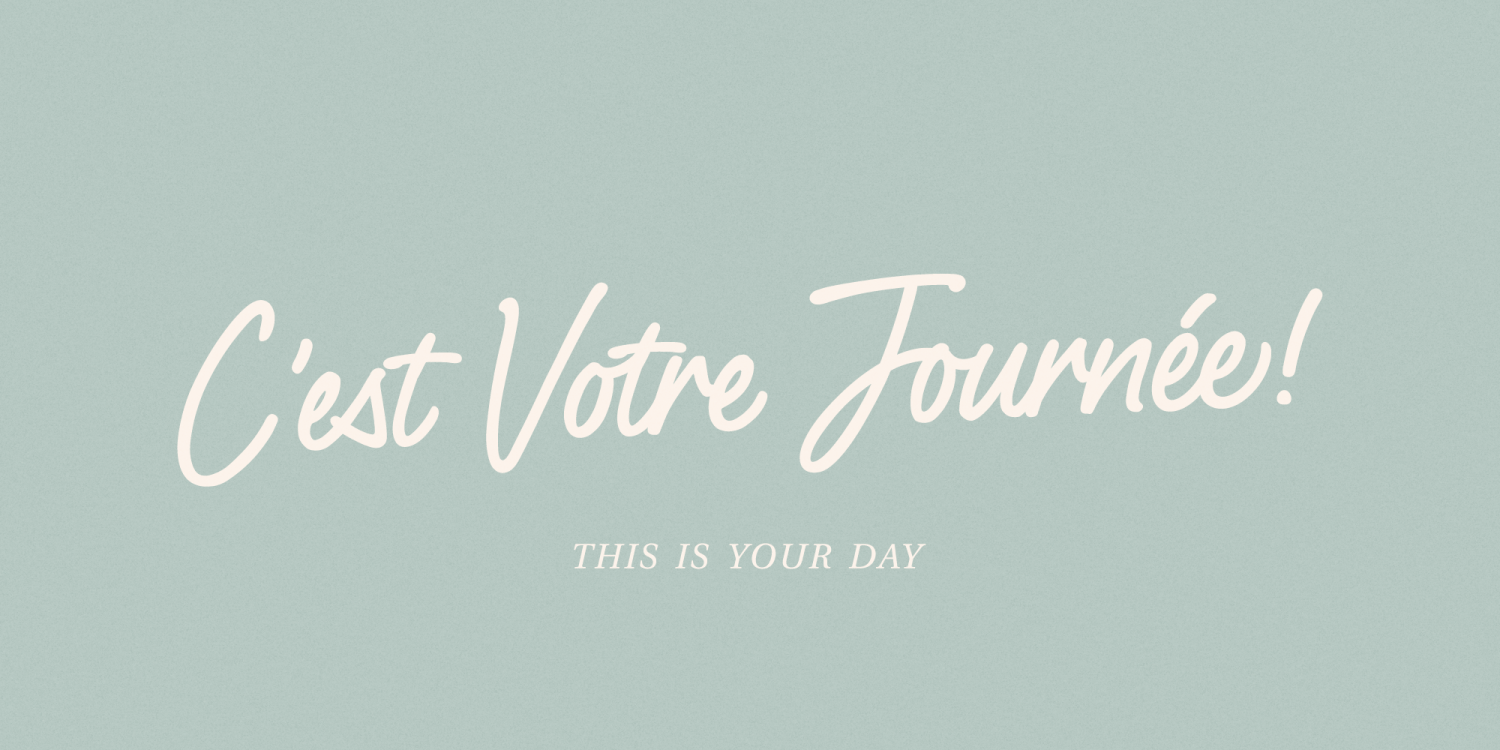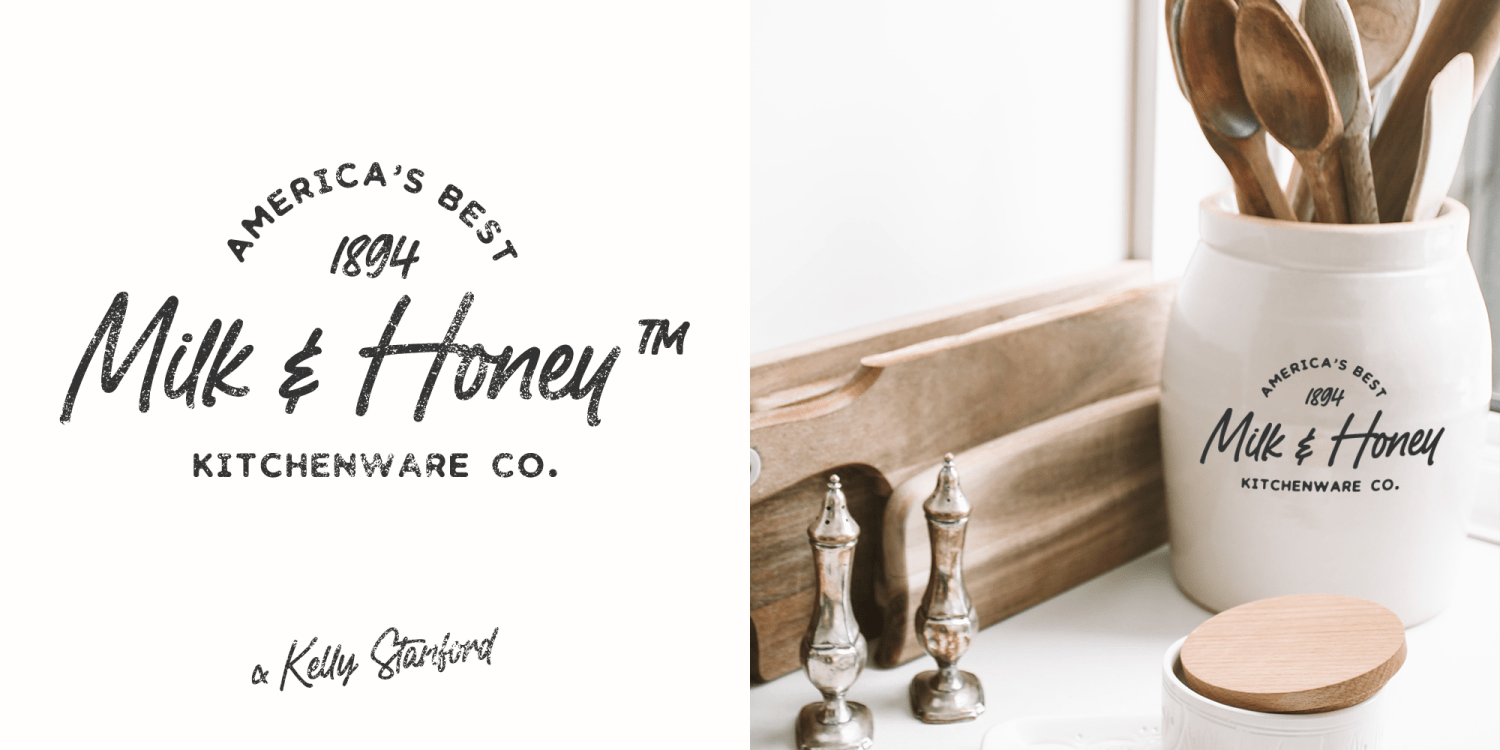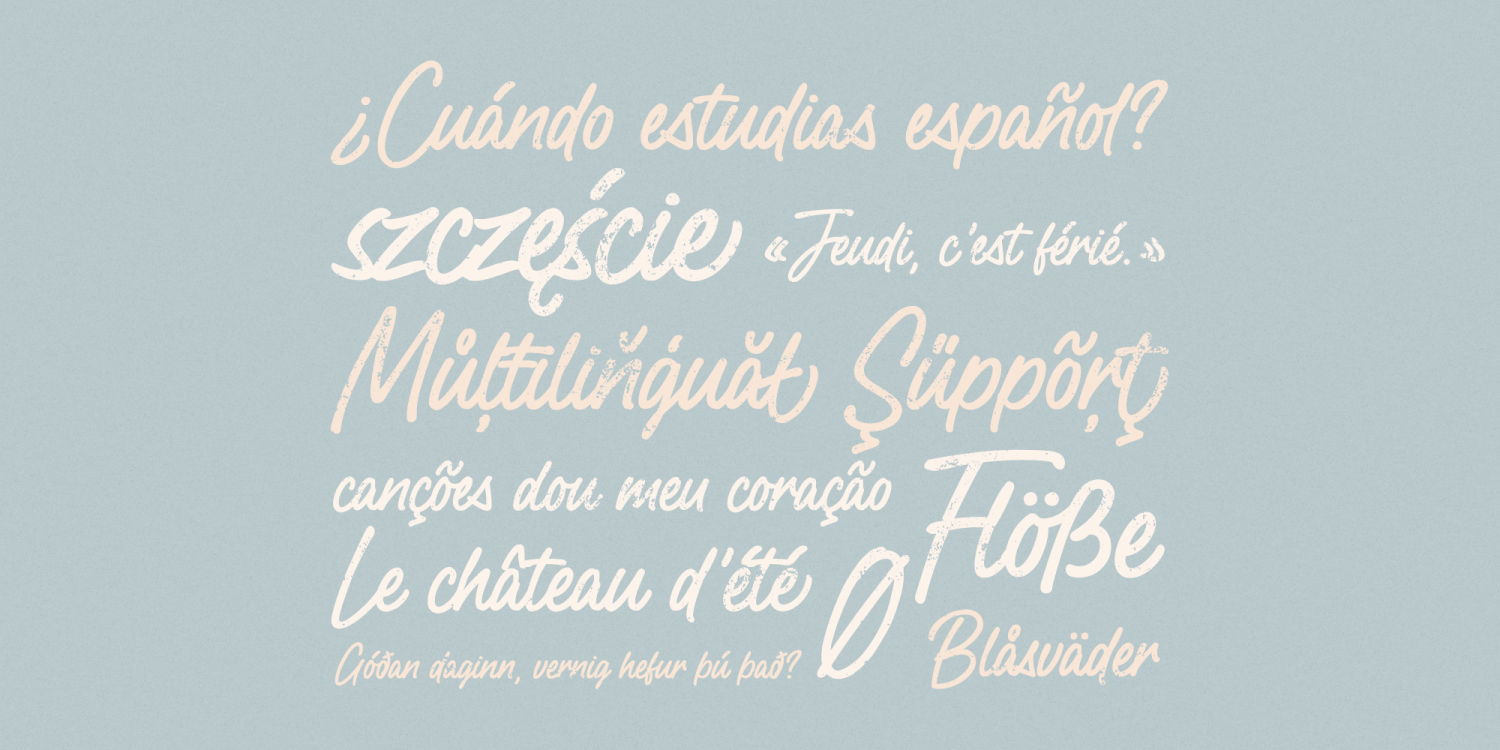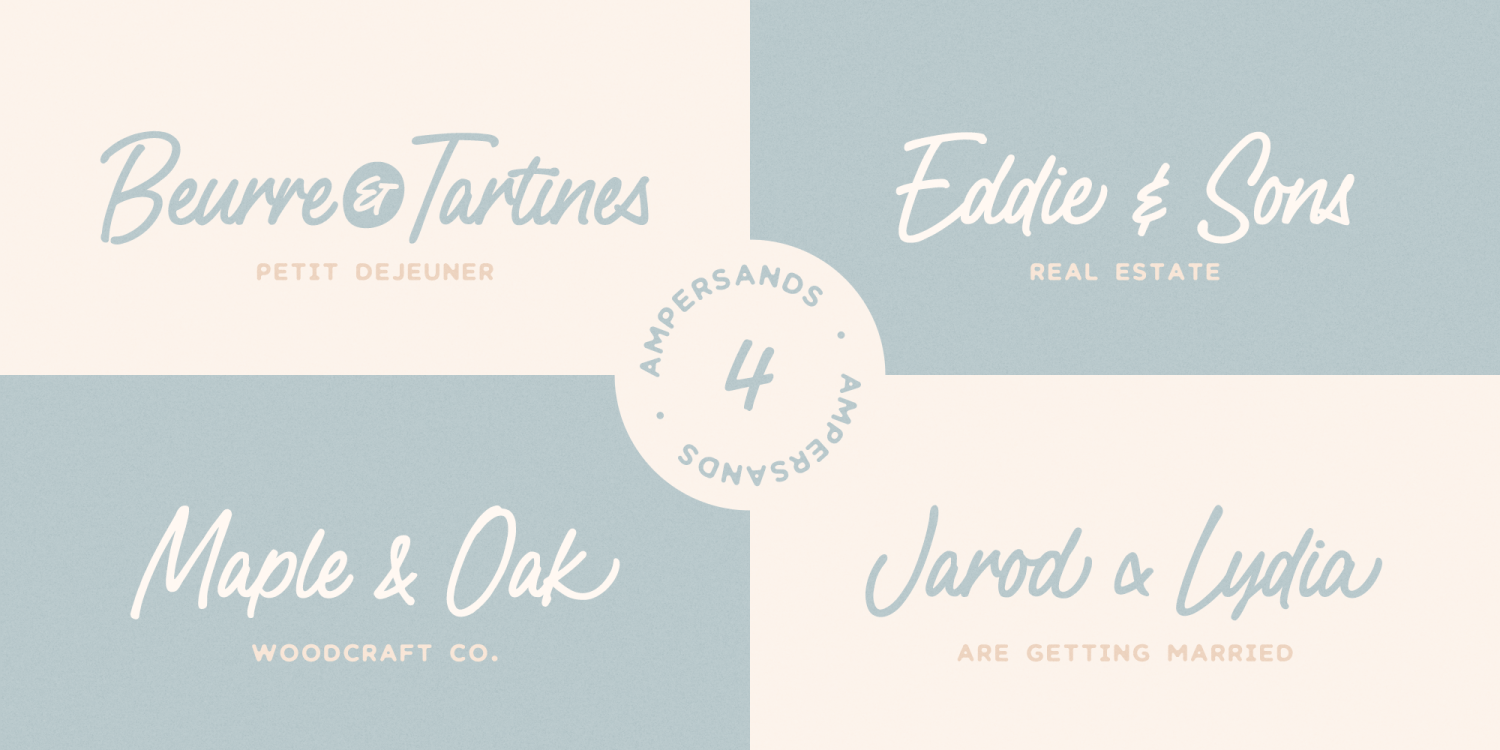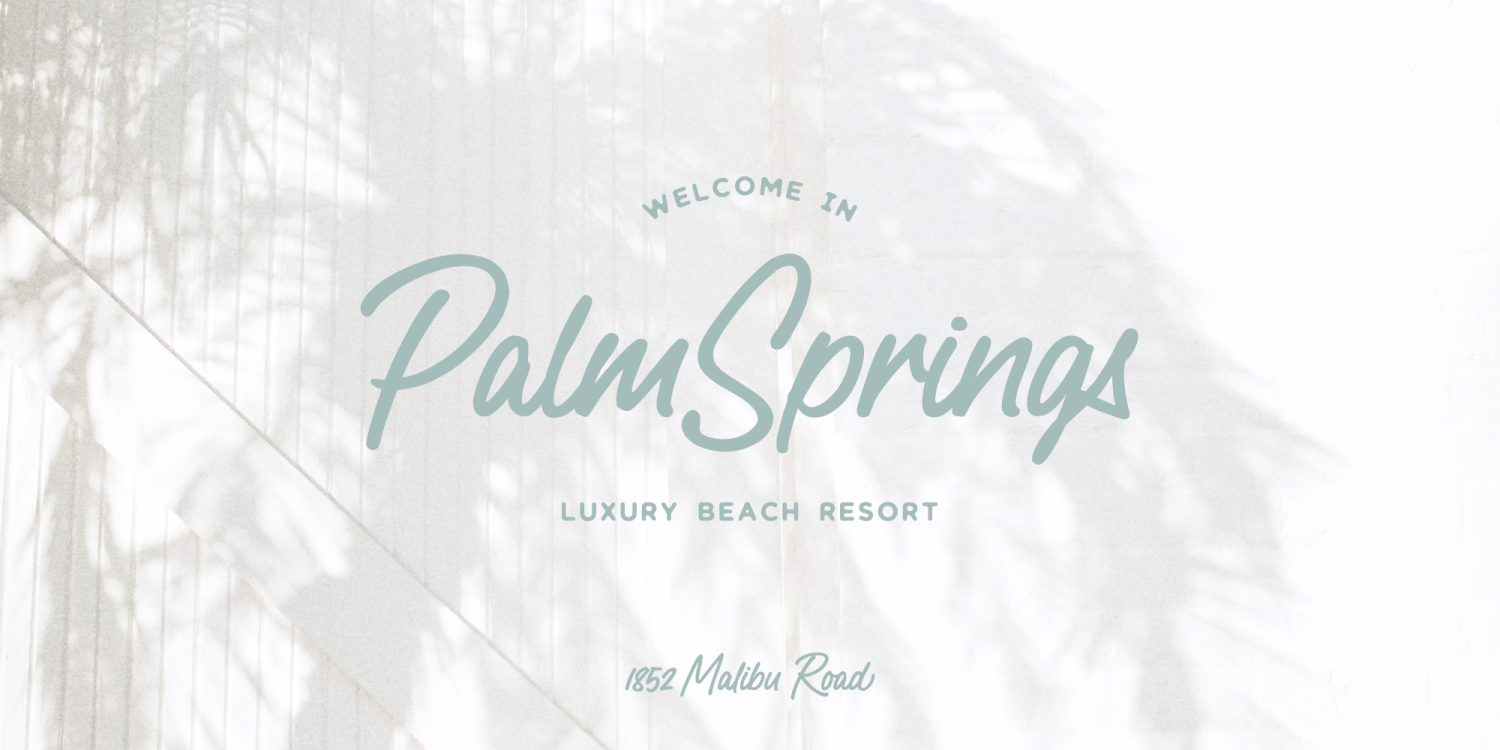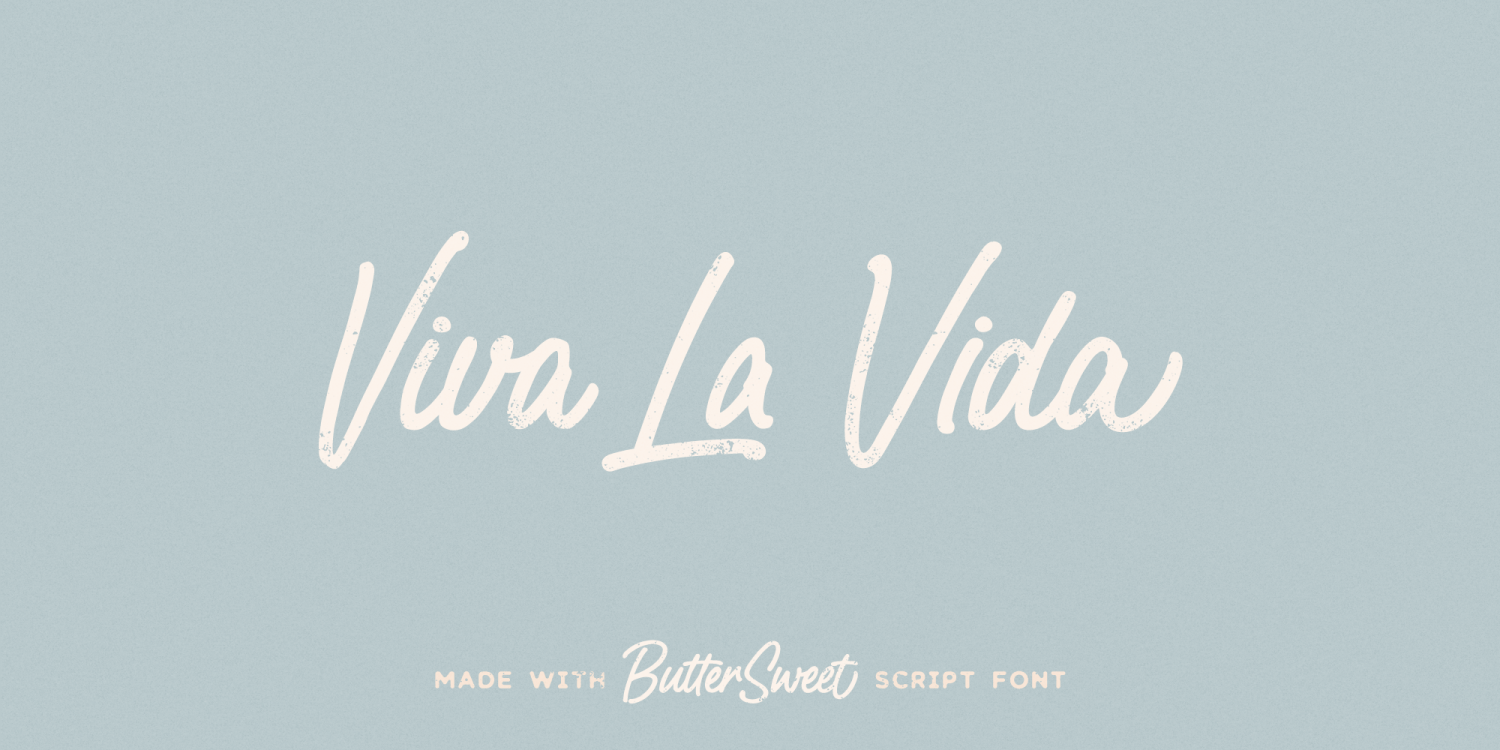
ButterSweet
ButterSweet is a charming smooth cursive script with a little french touch. It’s perfect for handcrafted brands that are looking for a bold script font with an authentic handwritten feeling.
Use it for blog headers, signatures, elegant branding, wedding stationery, products packaging, instagram quotes, greeting cards, social media posts, and so much more.
ButterSweet is designed with a large selection of Opentype features such as contextual alternates, a full stylistic set (Uppercase and lowercase), 38 regular ligatures, 18 terminal forms ligatures, 22 beautiful terminal forms for lowercase letters and you have 4 different ampersands to play with.
ButterSweet includes multilingual characters for western and central and European languages.